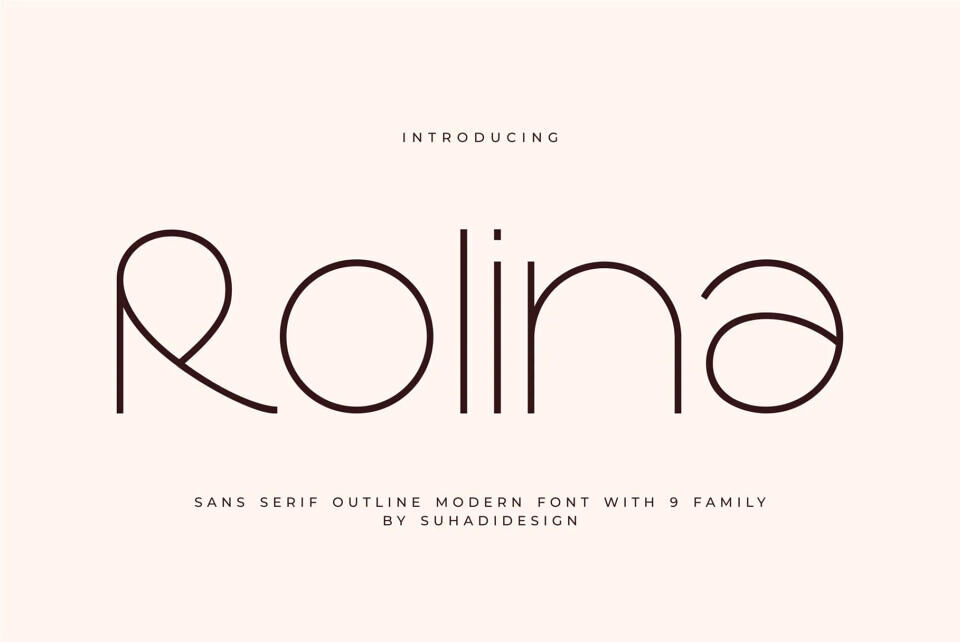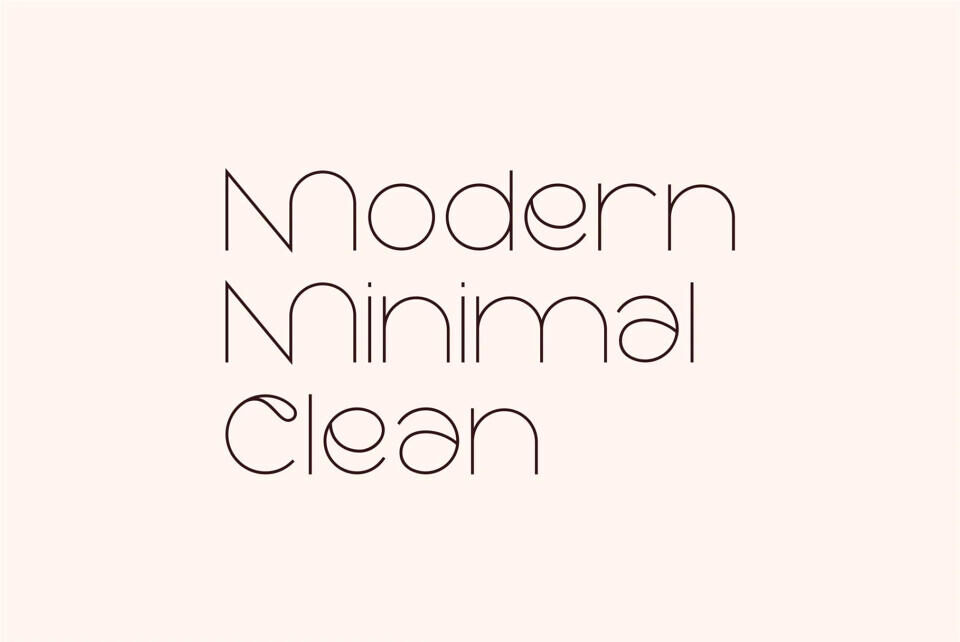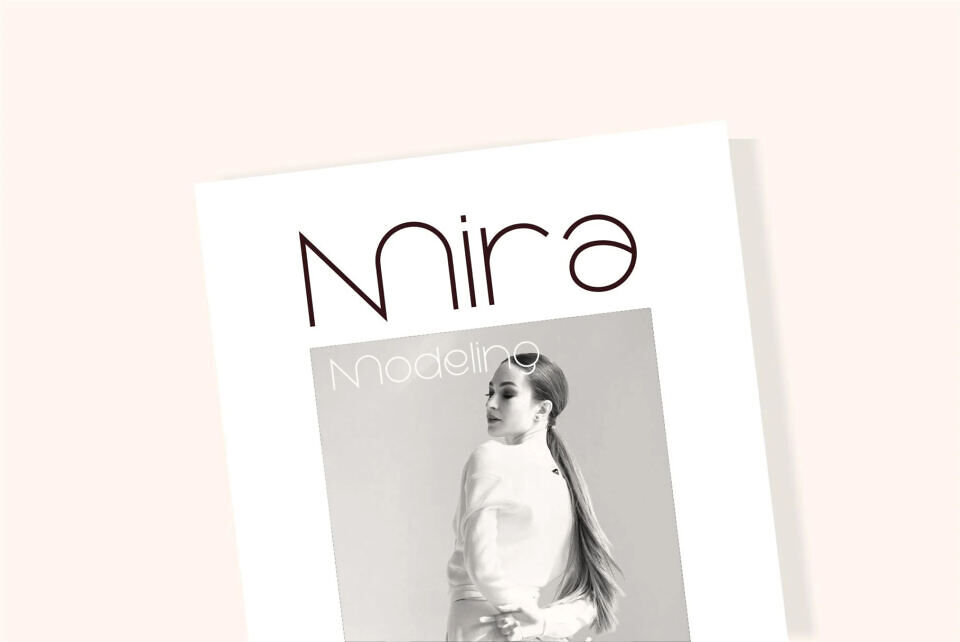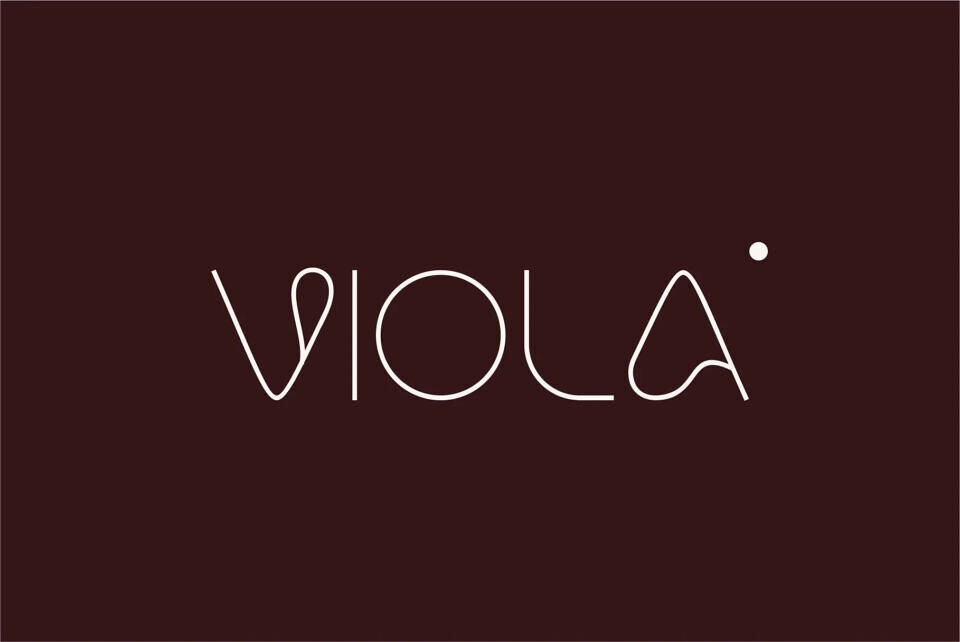
Rolina Font
Rolina Font is a modern sans serif typeface that embodies minimalism and elegance. With its clean, contemporary design, Rolina delivers a refined and stylish look, making it highly versatile for professional and creative projects.
Ideal for cosmetics, beauty brands, logos, magazines, books, business cards, and social media, this font adds sophistication to any design. Its sleek letterforms enhance readability while maintaining a timeless, classy appeal. Perfect for branding and editorial use, Rolina ensures your projects stand out with a polished, modern aesthetic.